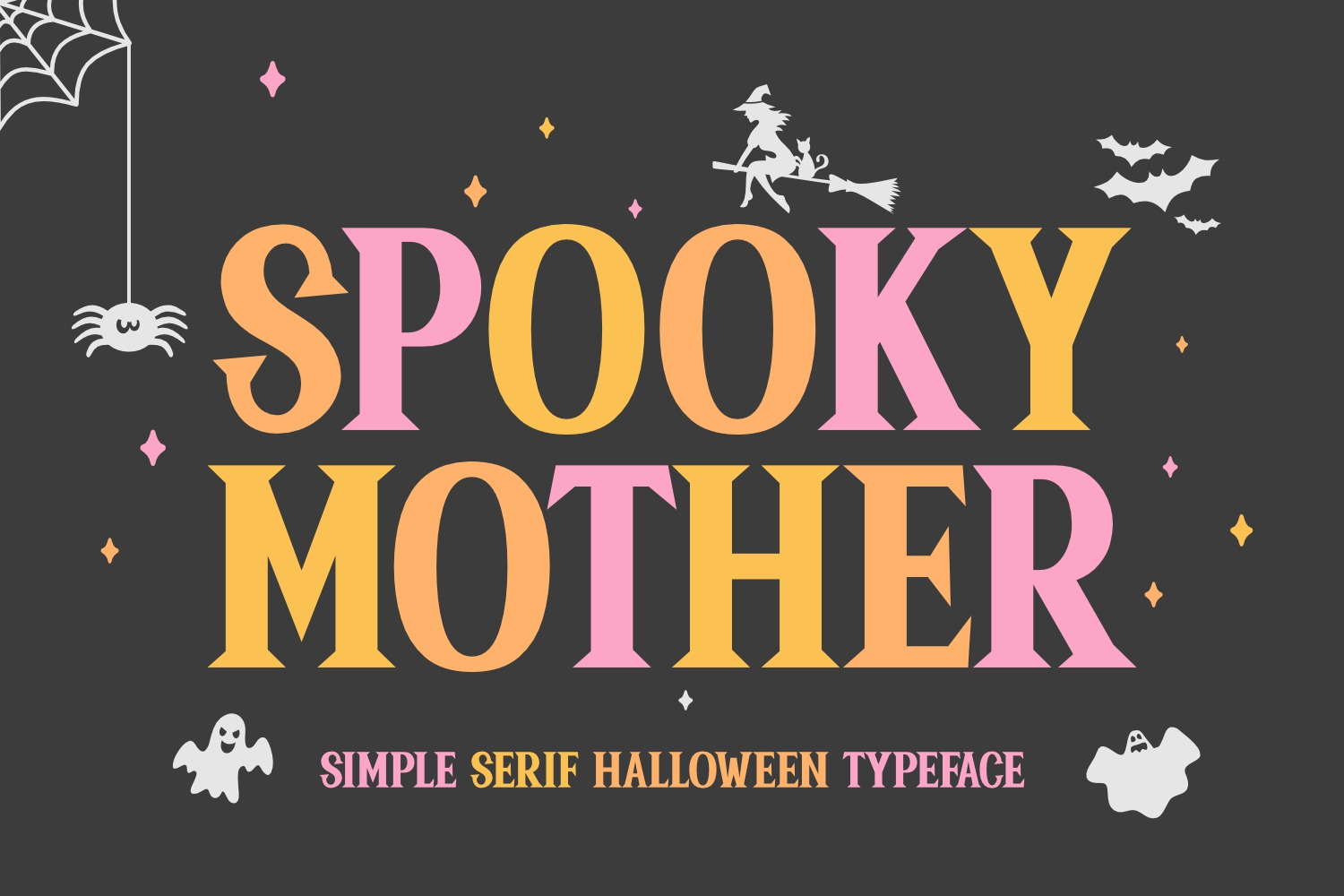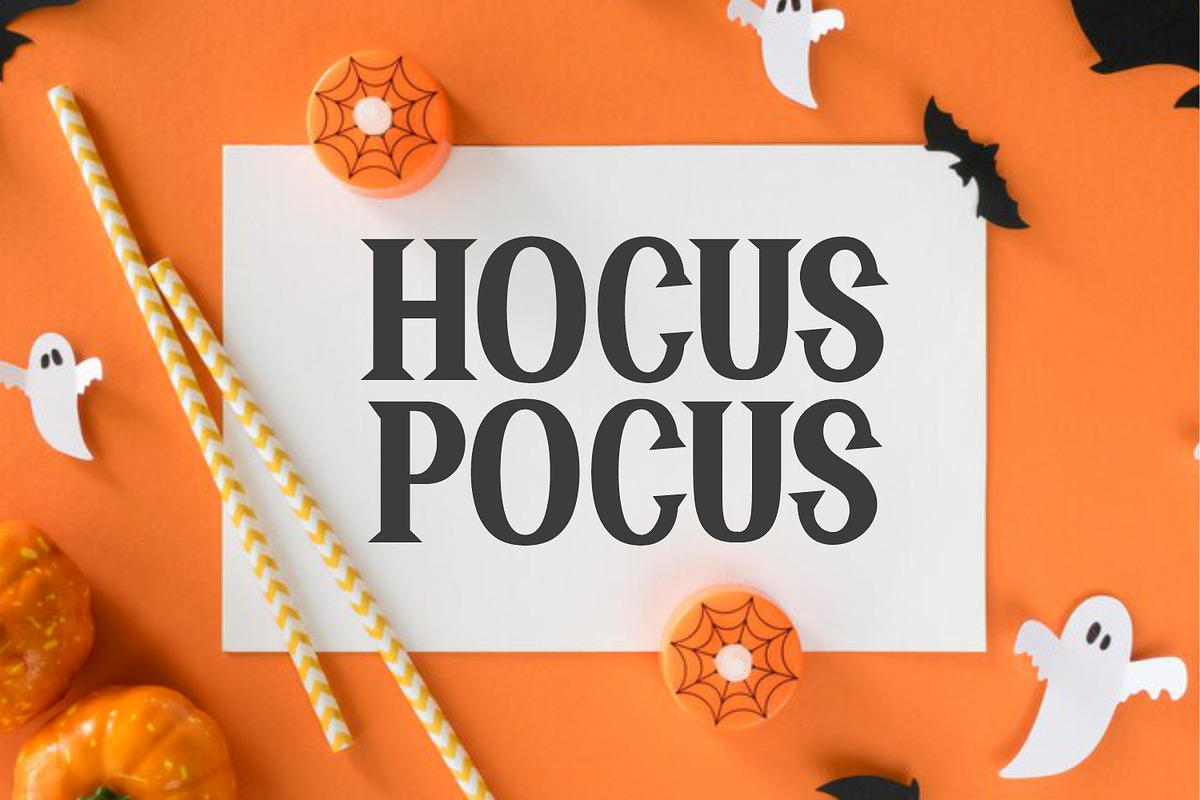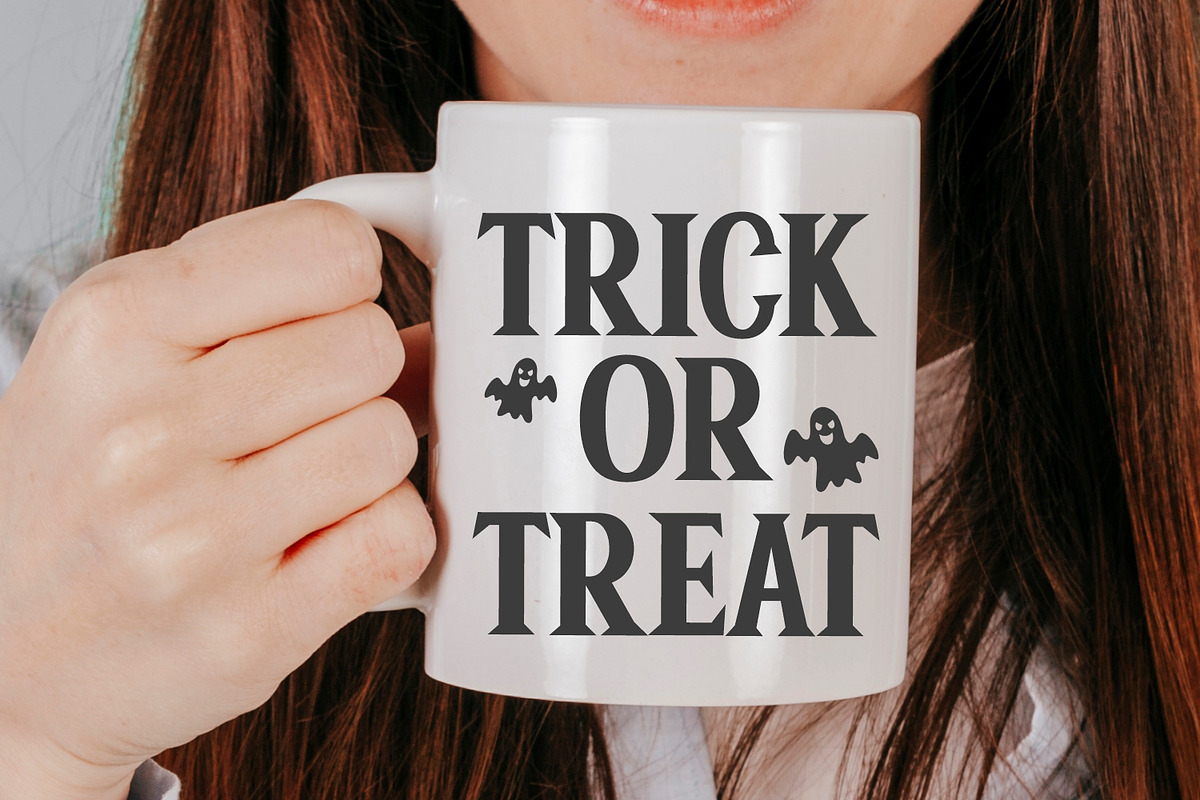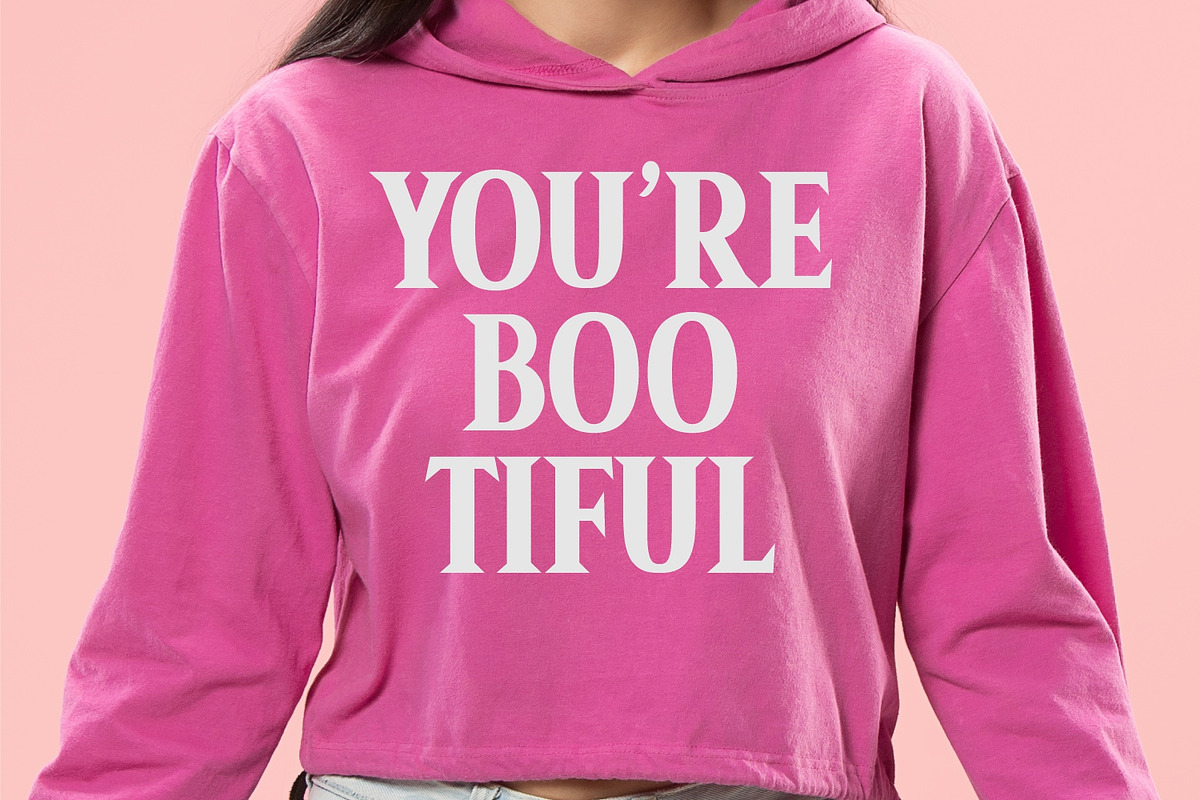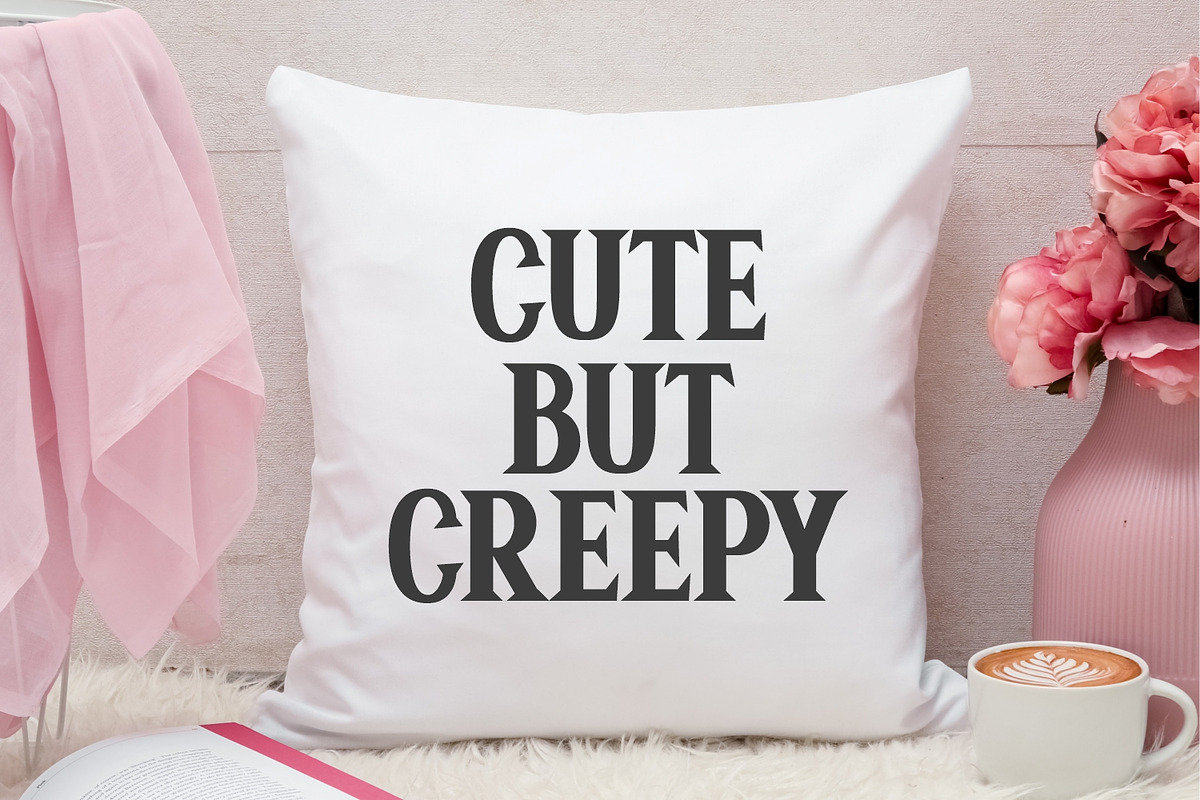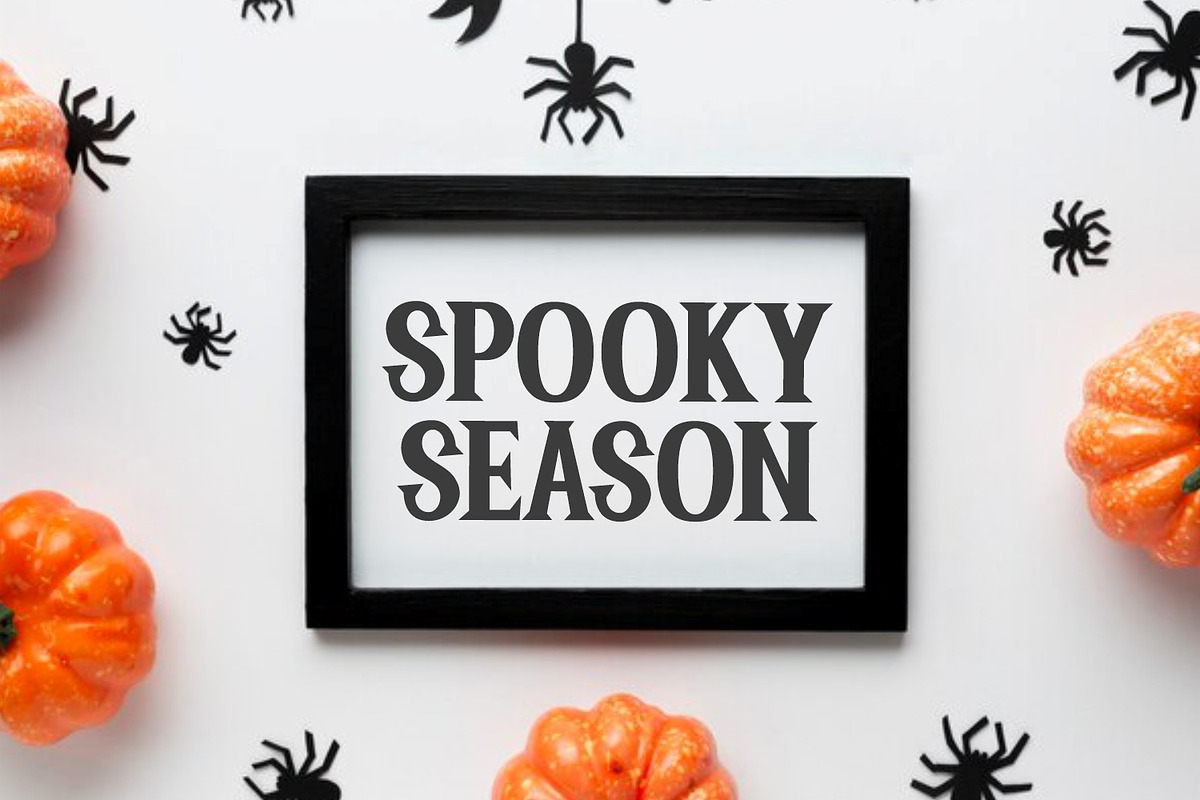
Spooky Mother - Halloween Font
Immerse yourself in the haunting allure of ‘Spooky Mother,’ an elegantly simplistic serif typeface with an eerie Halloween-inspired aesthetic. Its chilling yet charming visual appeal makes it a winning choice for various printed mediums such as t-shirts, hoodies, and posters. Do not limit your creativity- use ‘Spooky Mother’ for artful Halloween crafts, captivating party invitations or stirring greeting cards. It’s a true game-changer for banners and social media posts that crave an infusion of spooky and stylish vibes. Experience the stirring blend of creepiness and sophistication in every stroke of ‘Spooky Mother’.